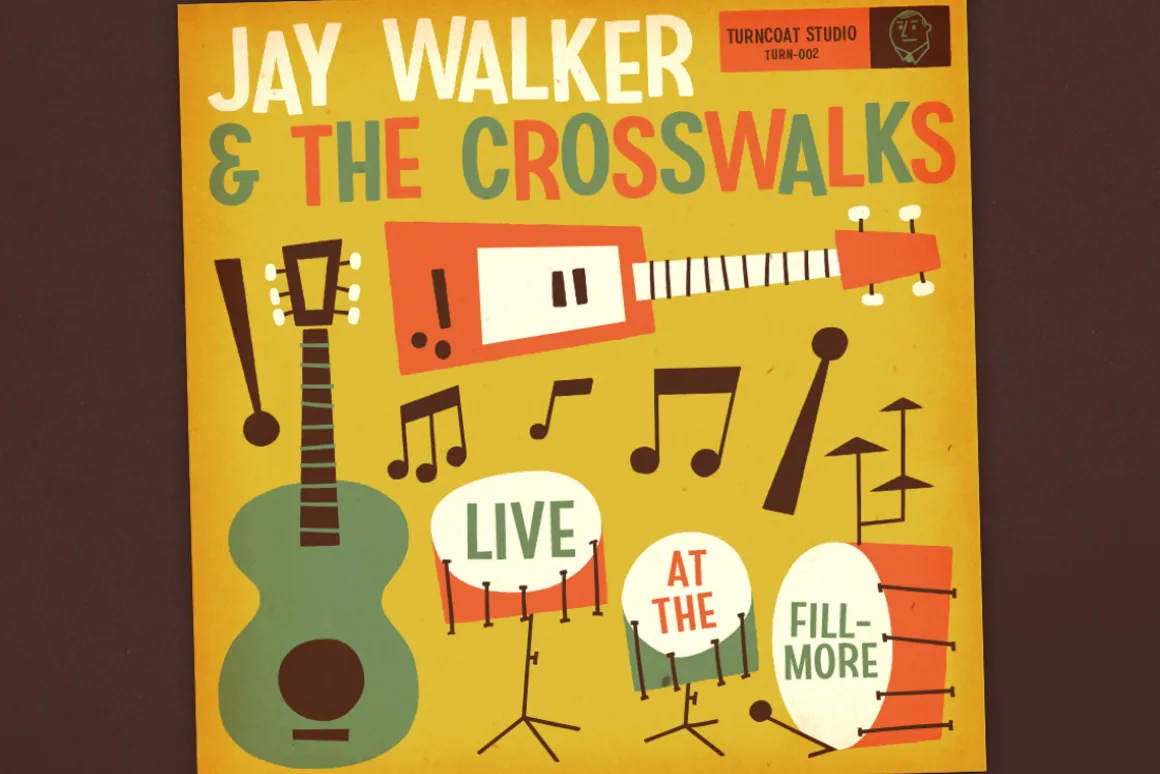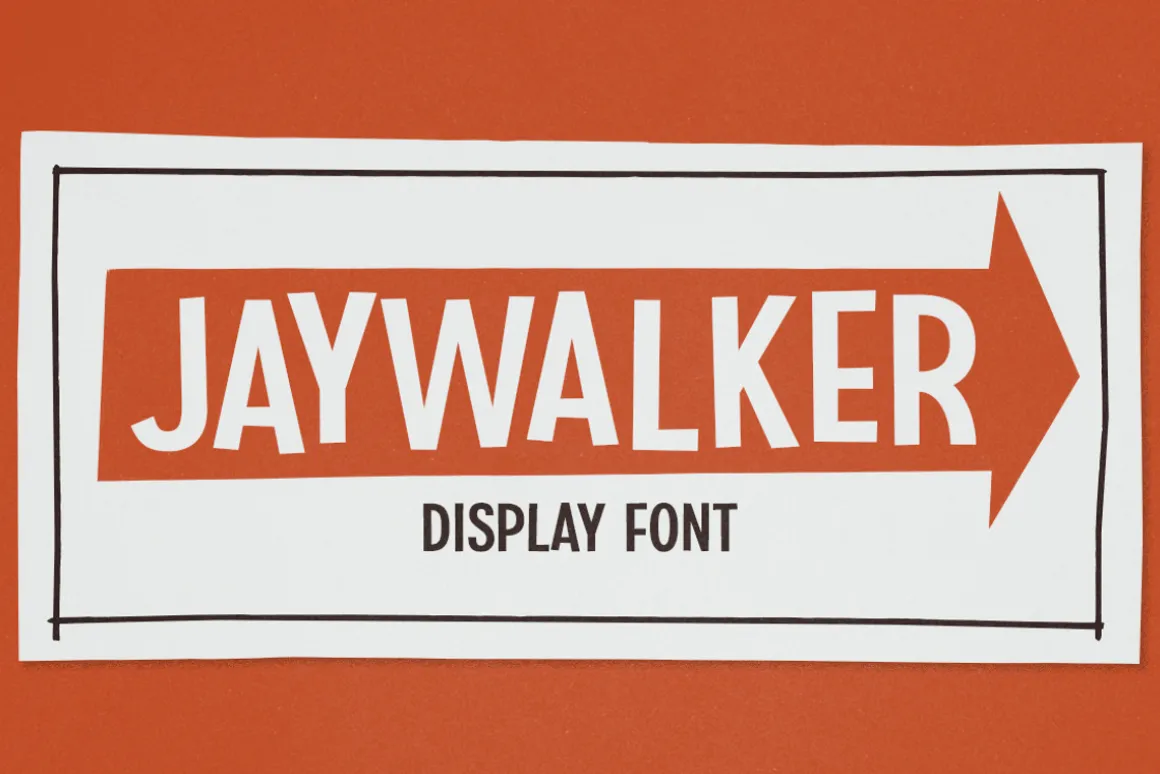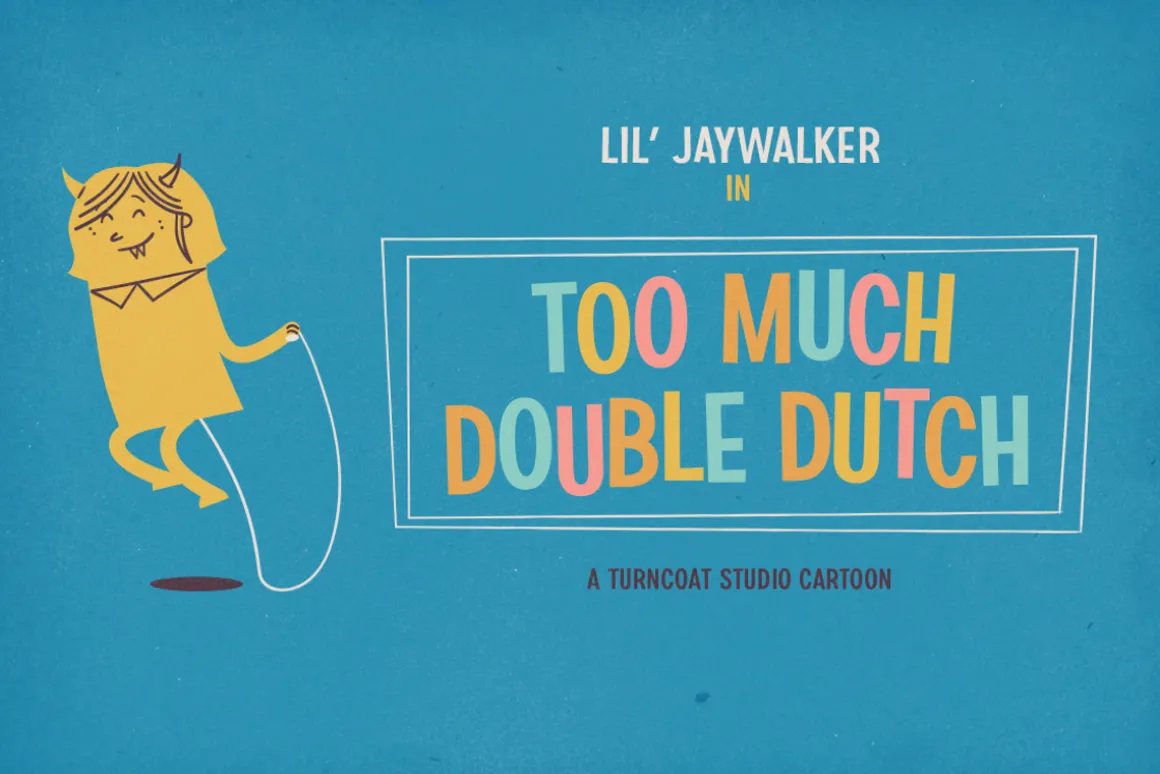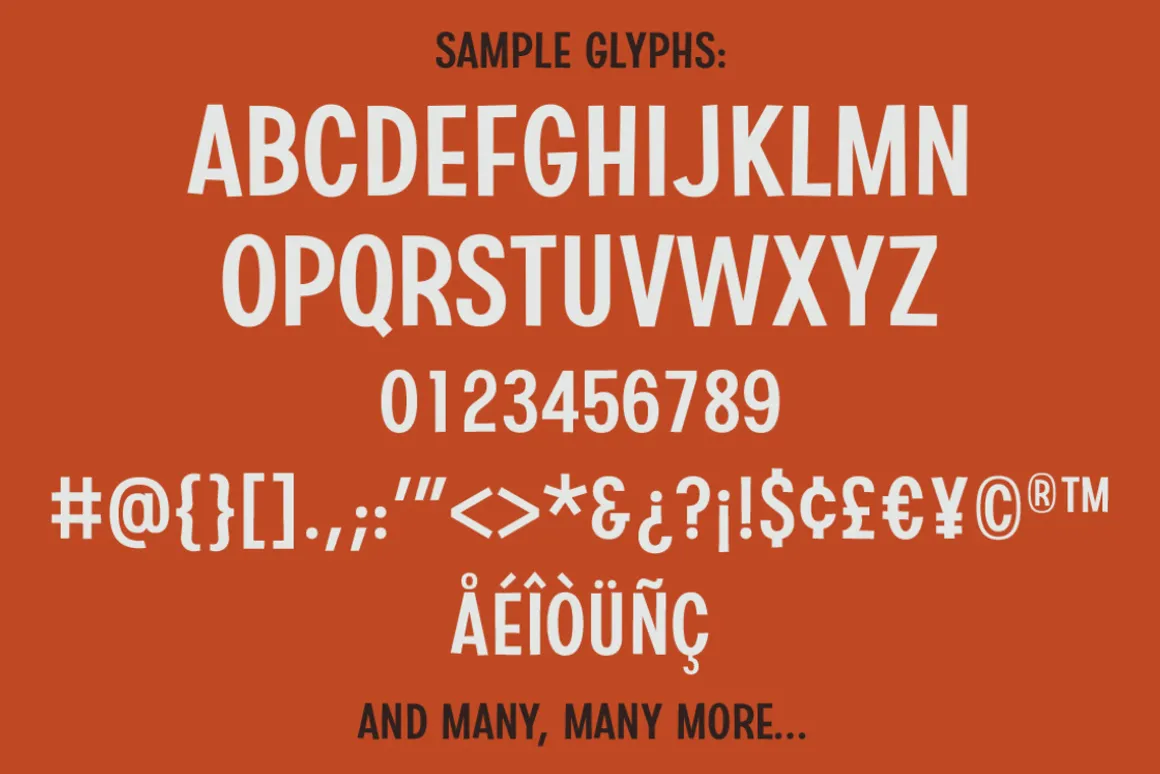
Jaywalker is a sans serif display font inspired by mid-century illustration and design. Use this off-kilter typeface to spruce up your mod-tastic t-shirt, logo, poster, packaging, invitation, or anything else you can dream up!
- Uppercase characters
- Numbers and mathematical symbols
- Special characters and accents
- Supports most Western European languages
- Contains 160+ glyphs